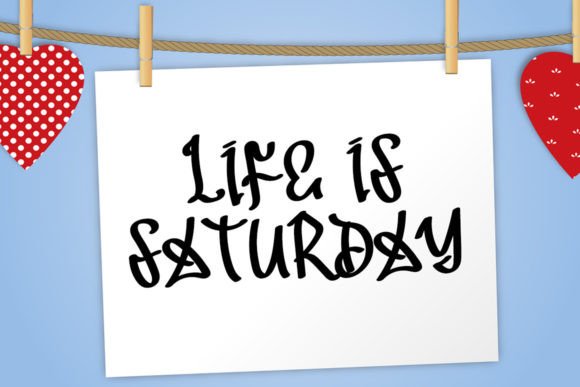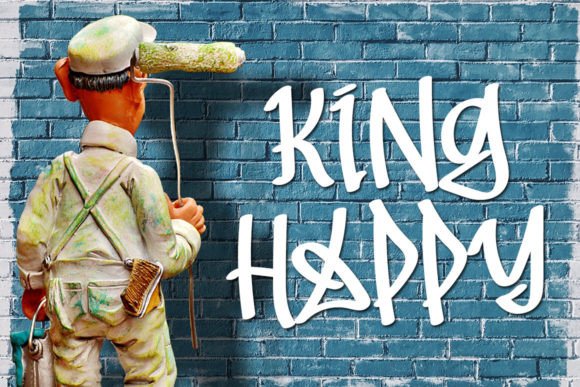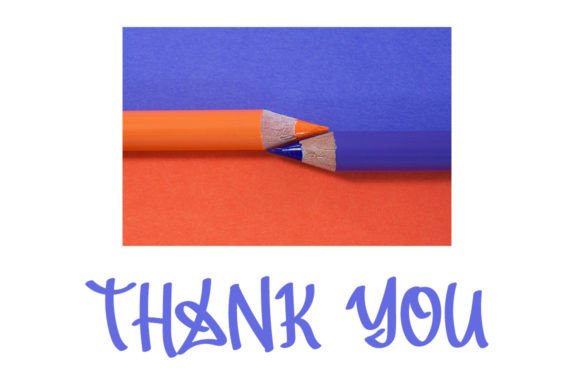
Unleashing the Joy of Design: Introducing Kids Designer Font
As a designer, you know that sometimes the smallest details can make all the difference in a project. Remember the moment when you finally found the perfect font to bring your vision to life? It’s a feeling of pure excitement and satisfaction, isn’t it? That’s exactly what we’re about to share with you – a font that will put a smile on your face and add a touch of magic to your designs.
Meet Kids Designer Font, a beautiful and sweet display font that’s perfect for adding a fresh, clean, and modern touch to your projects. Whether you’re working on a formal or informal design, this font is sure to impress. Its versatility and playful feel make it a valuable addition to any designer’s toolkit, allowing you to create stunning visuals that will leave a lasting impression.
Kids Designer Font Key Features
- Unique Characteristics: The font features playful, rounded shapes, and whimsical details, making it perfect for children’s content and educational materials.
Designer Review: Kids Designer Font
I’ve had the chance to take a closer look at the “Kids Designer Font”, and I have mixed feelings about it.
- ✨ Unique and playful style that’s perfect for children’s content and projects
- ✨ Excellent legibility, even at small font sizes
- ✨ Supports a wide range of languages, making it a versatile option
- ⚠️ Limited character set and no extended character support
- ⚠️ Not ideal for formal or professional projects due to its playful nature
- ⚠️ Some users may find the font too loud or overwhelming
Overall, I think the “Kids Designer Font” is a solid option for projects that require a fun and engaging design. However, it may not be the best fit for every project. If you’re looking for a font that’s perfect for kids’ content, educational materials, or playful websites, this might be a great choice. Just be aware of its limitations and consider using it in conjunction with other fonts for a more balanced design.